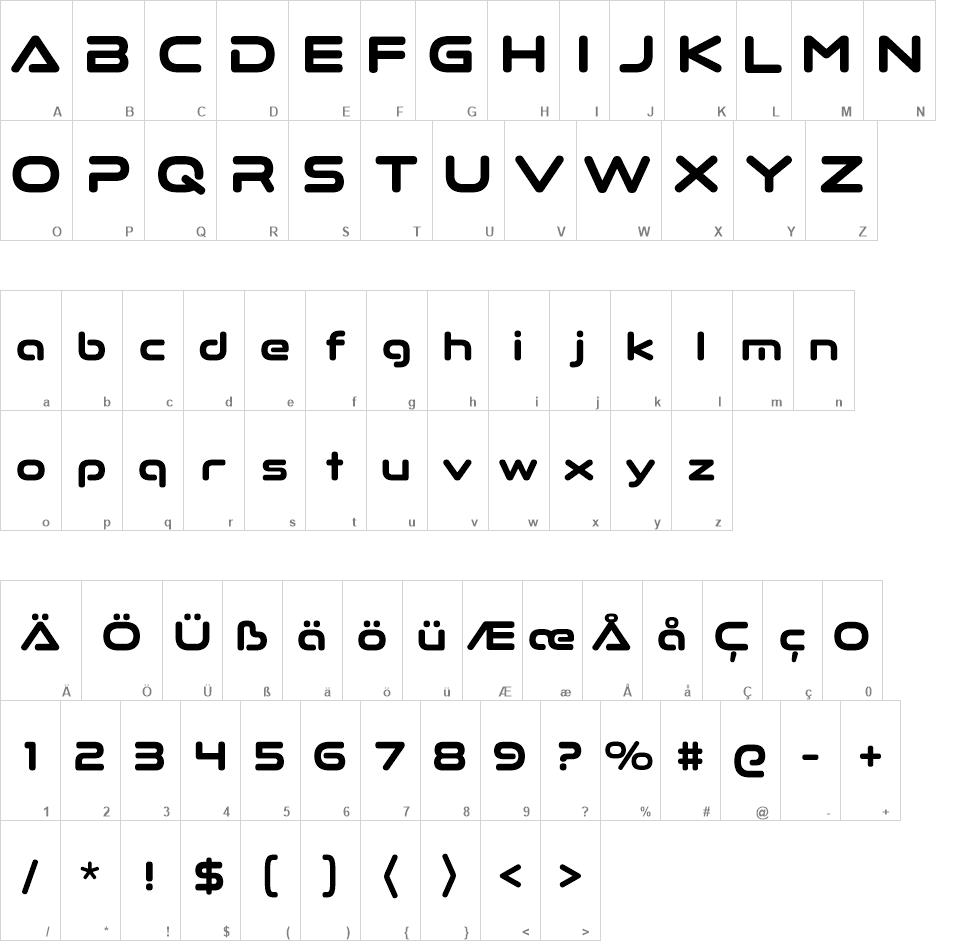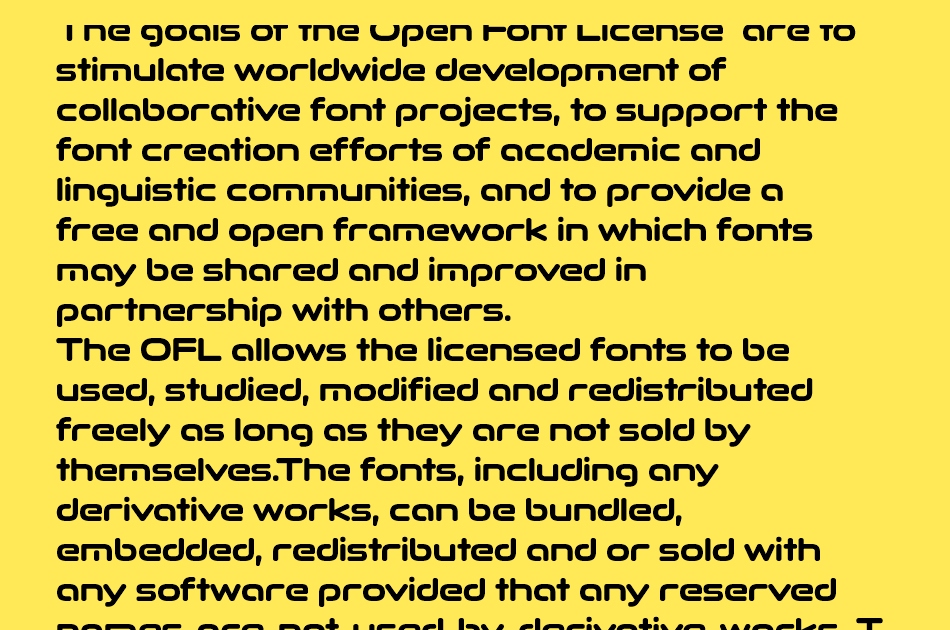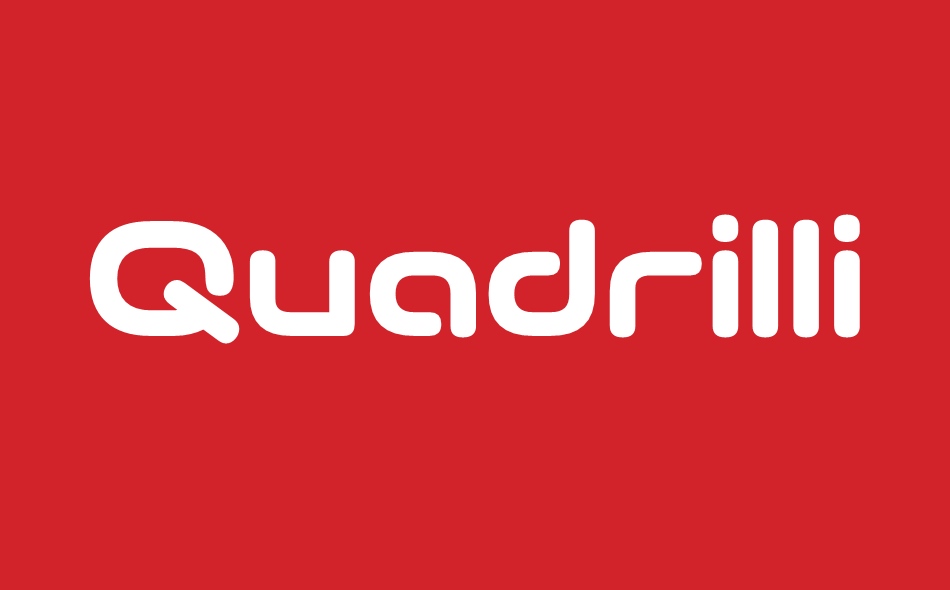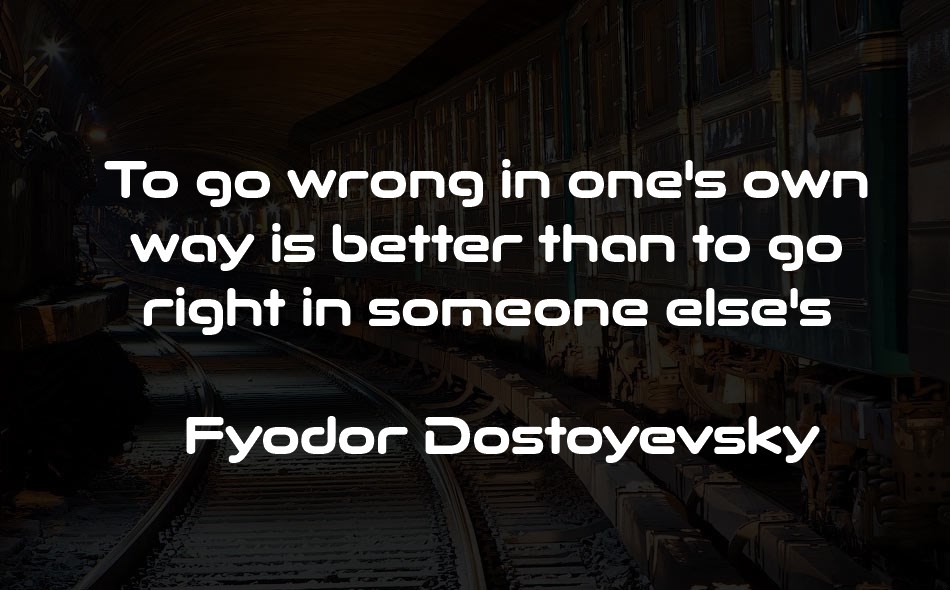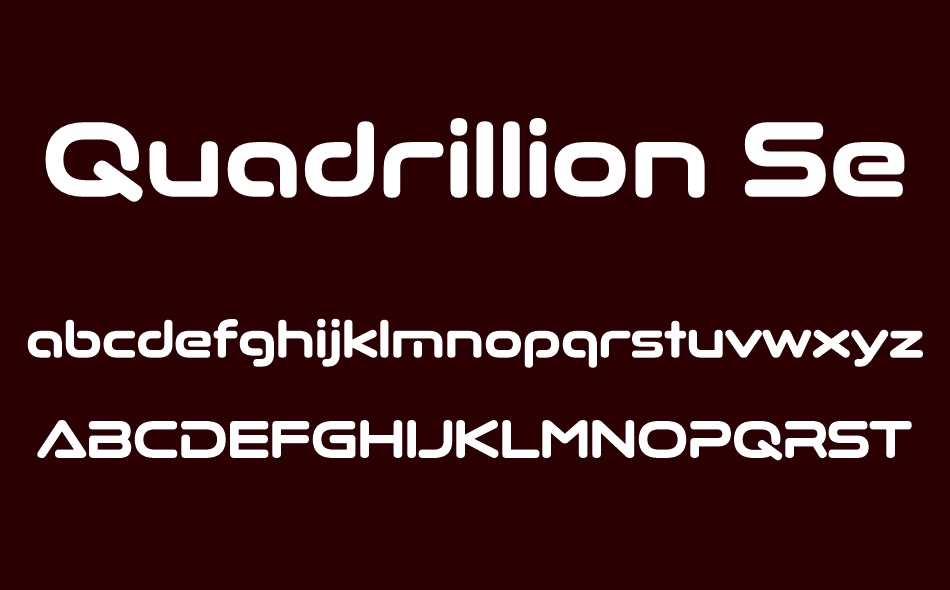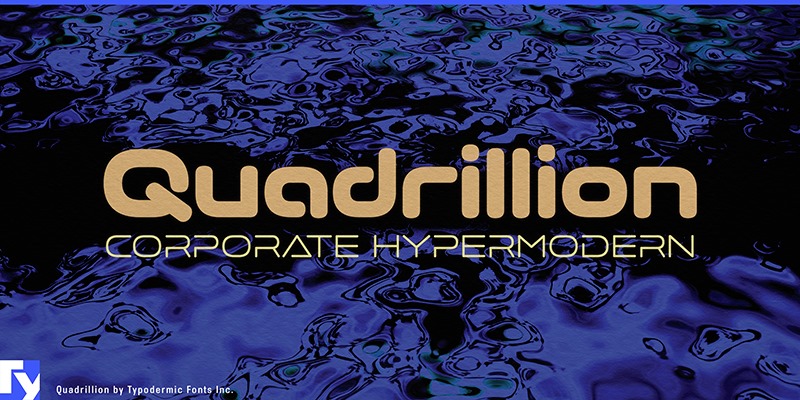
Quadrillion font
Quadrillion Semi Bold is a wide, futuristic sans serif with capsule-shaped forms and rounded terminals. Its balanced geometry and generous spacing give it a smooth, confident rhythm that stands out in headlines while remaining clear in modern branding and editorial layouts.
The design blends the sleek speed of techno lettering with a softer, more approachable edge, making it well suited to tech interfaces, packaging, cinematic titles, and other forward-looking projects. With support for Latin, Greek, and Cyrillic alphabets, Quadrillion adapts easily to global design work.